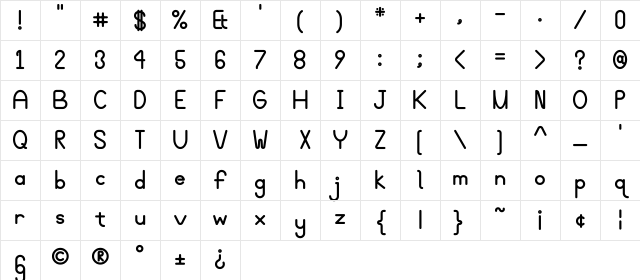
BloomingGroveAltBold Bold Free Font
BloomingGroveAltBold Bold
Design Context for BloomingGroveAltBold
BloomingGroveAltBold is a composed and adaptable typeface that performs quietly and consistently across a wide range of design contexts. Its bold stroke weight gives it real presence on the page.